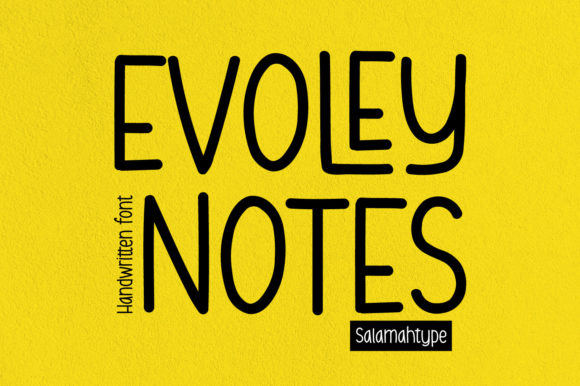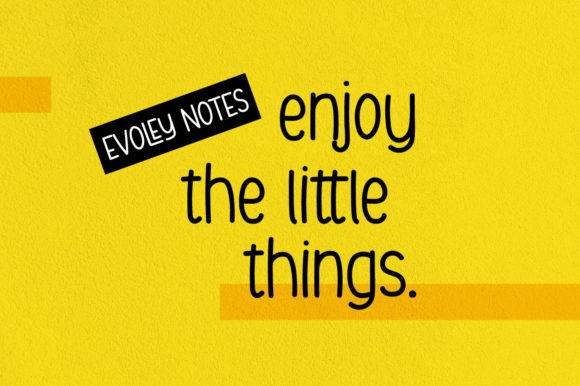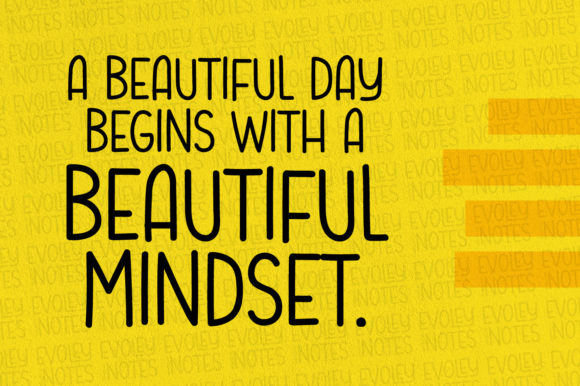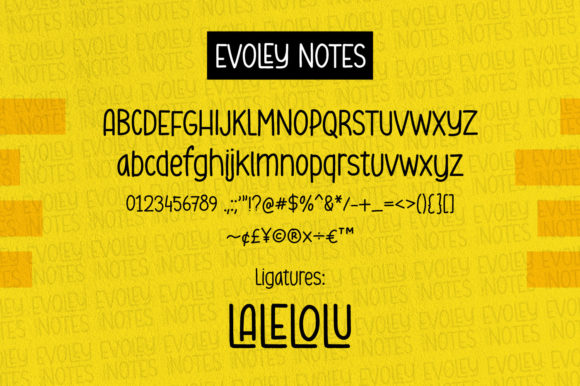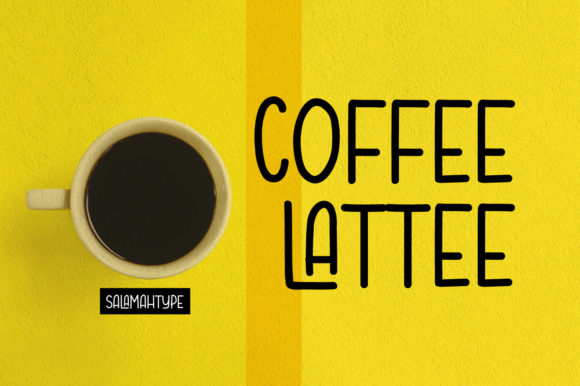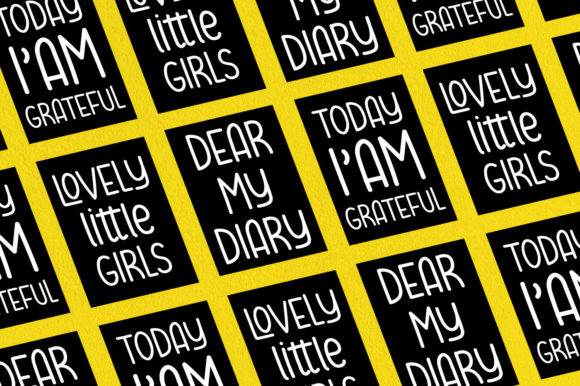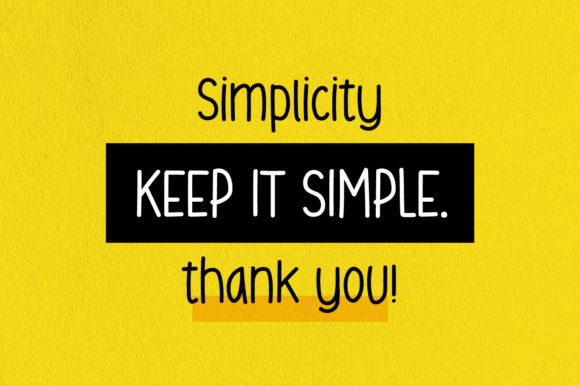
Evoley Notes Font
About Evoley Notes Font
Evoley Notes is a simple and adaptable handwritten font. This font is perfect for quotes, magazines, labels, branding, posters, logos and more.